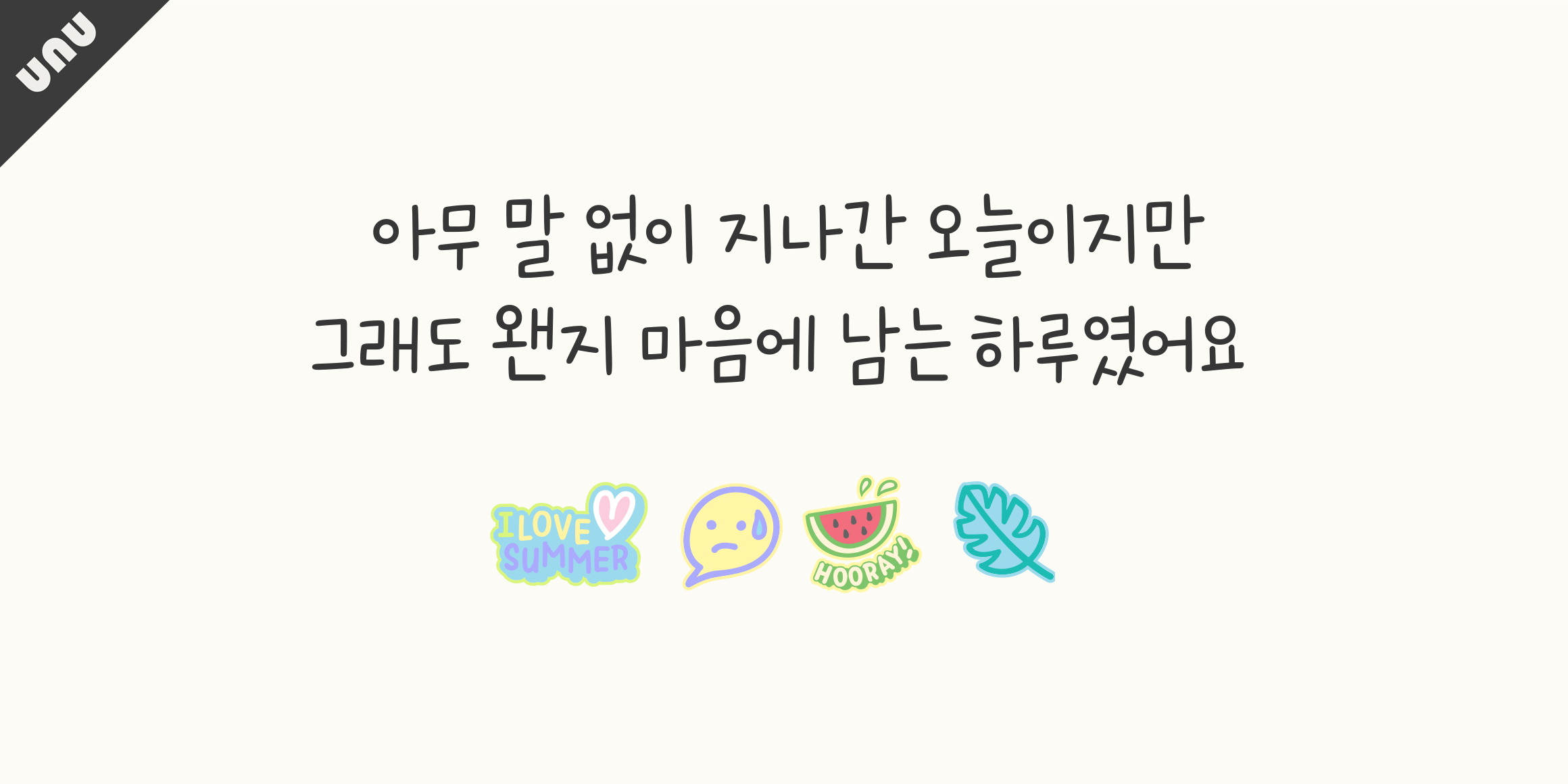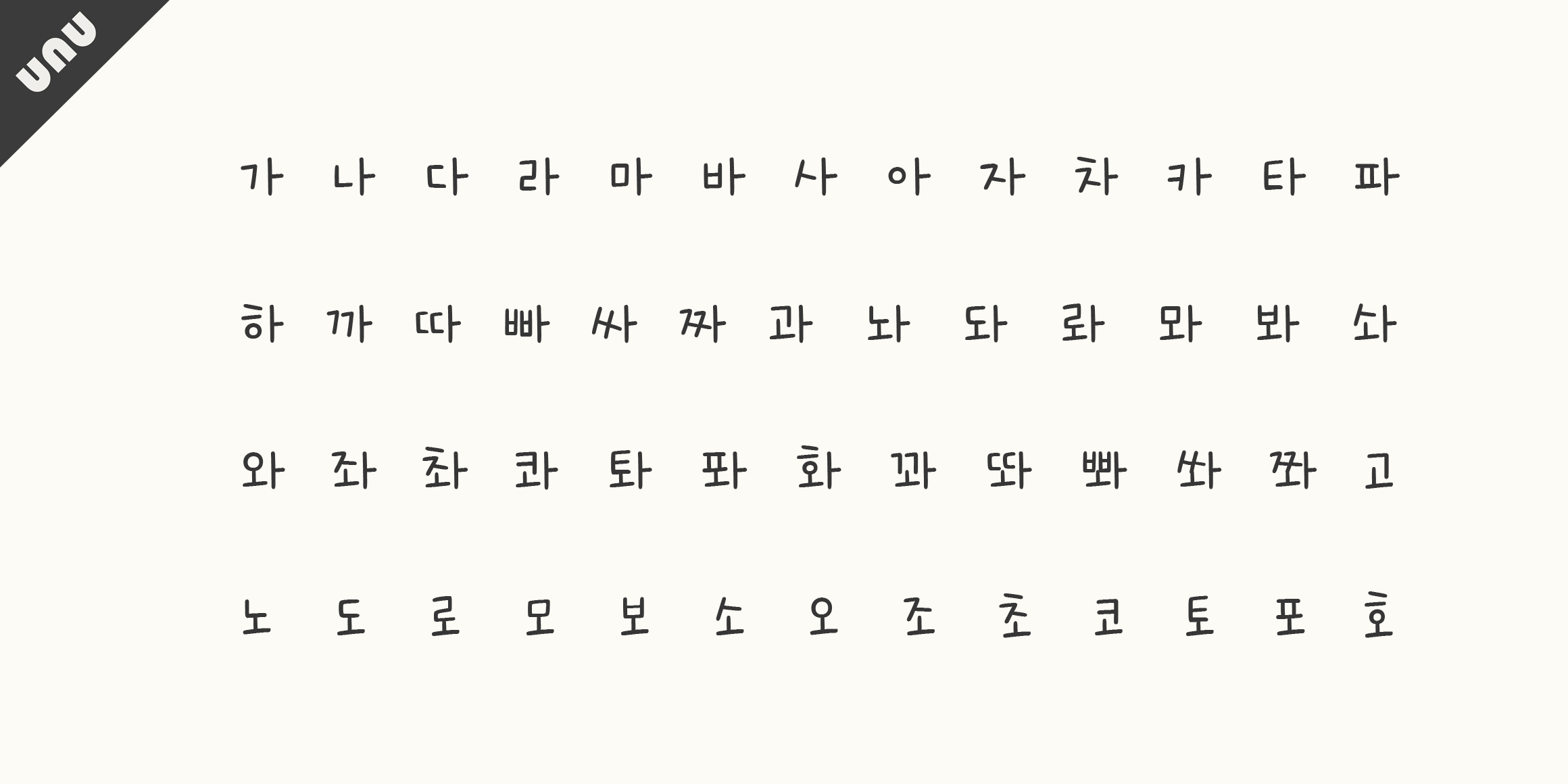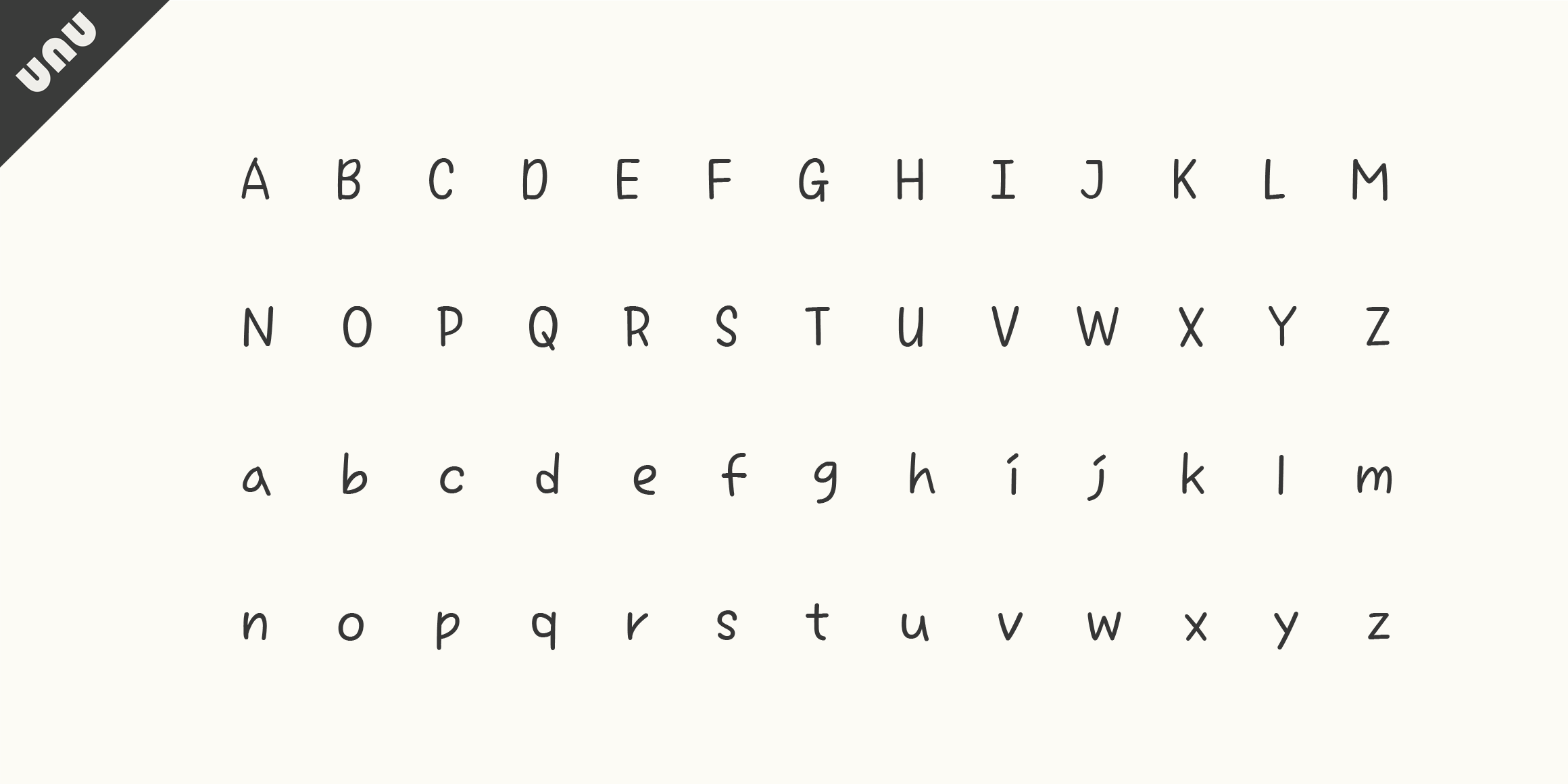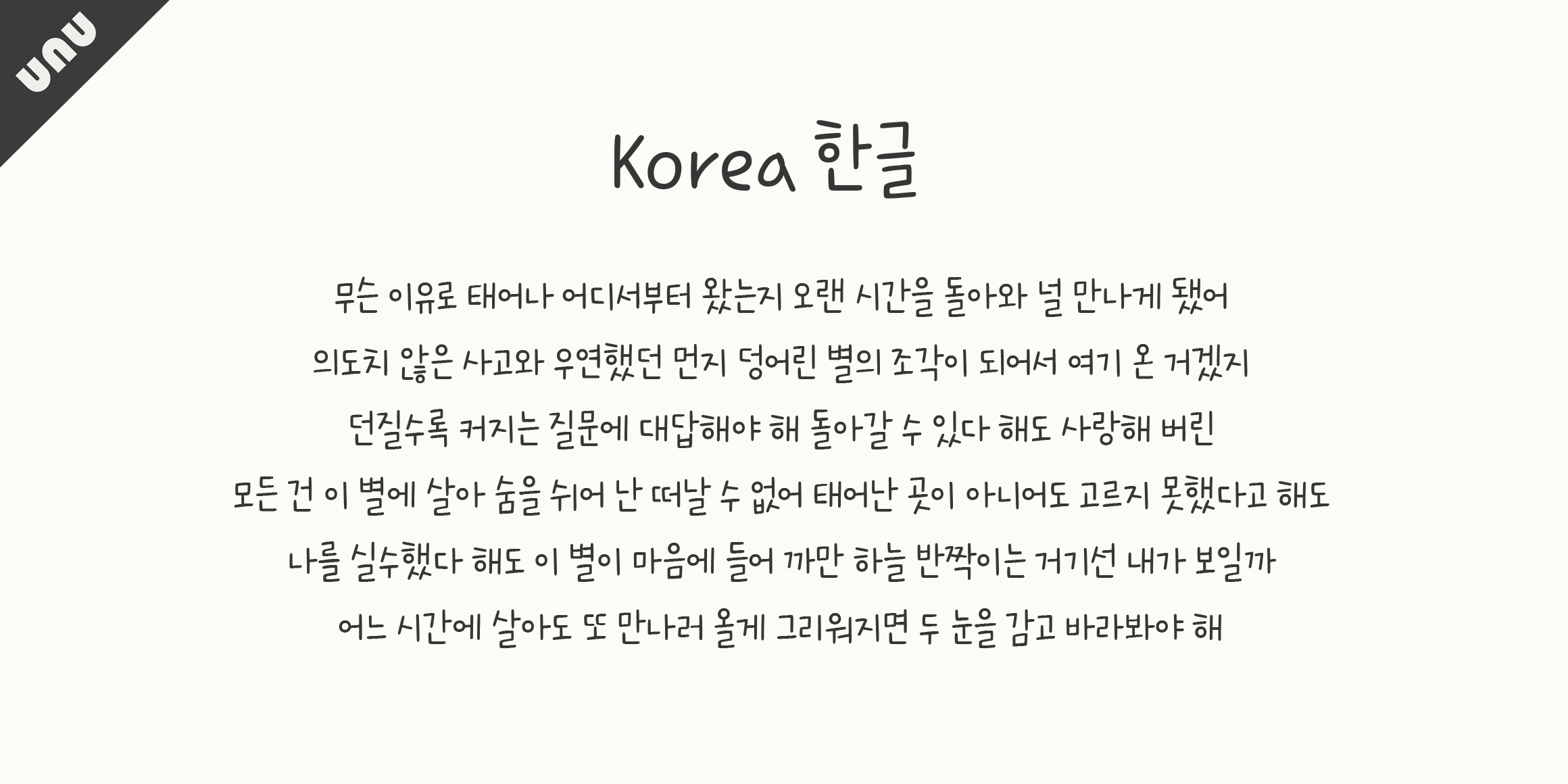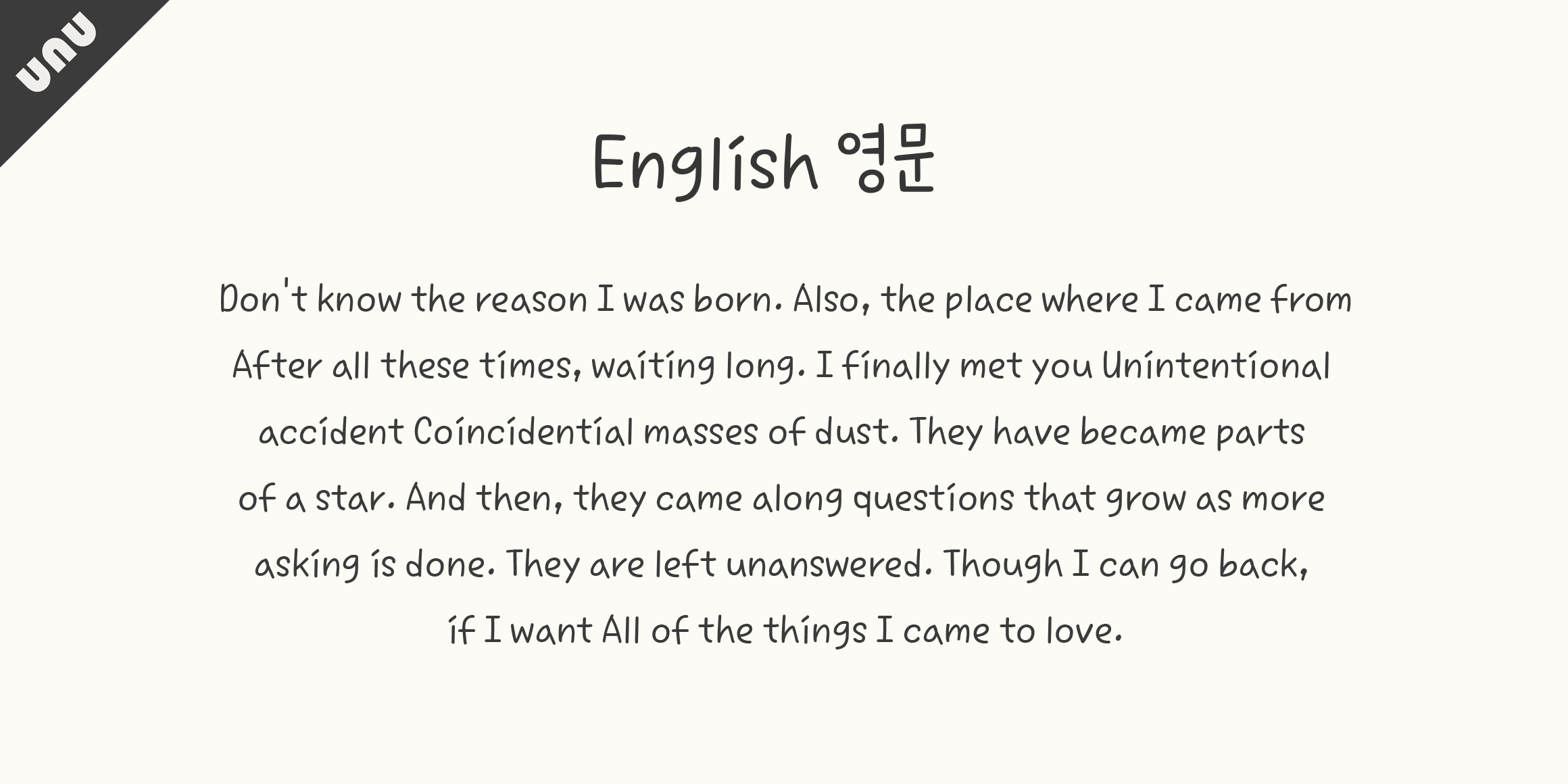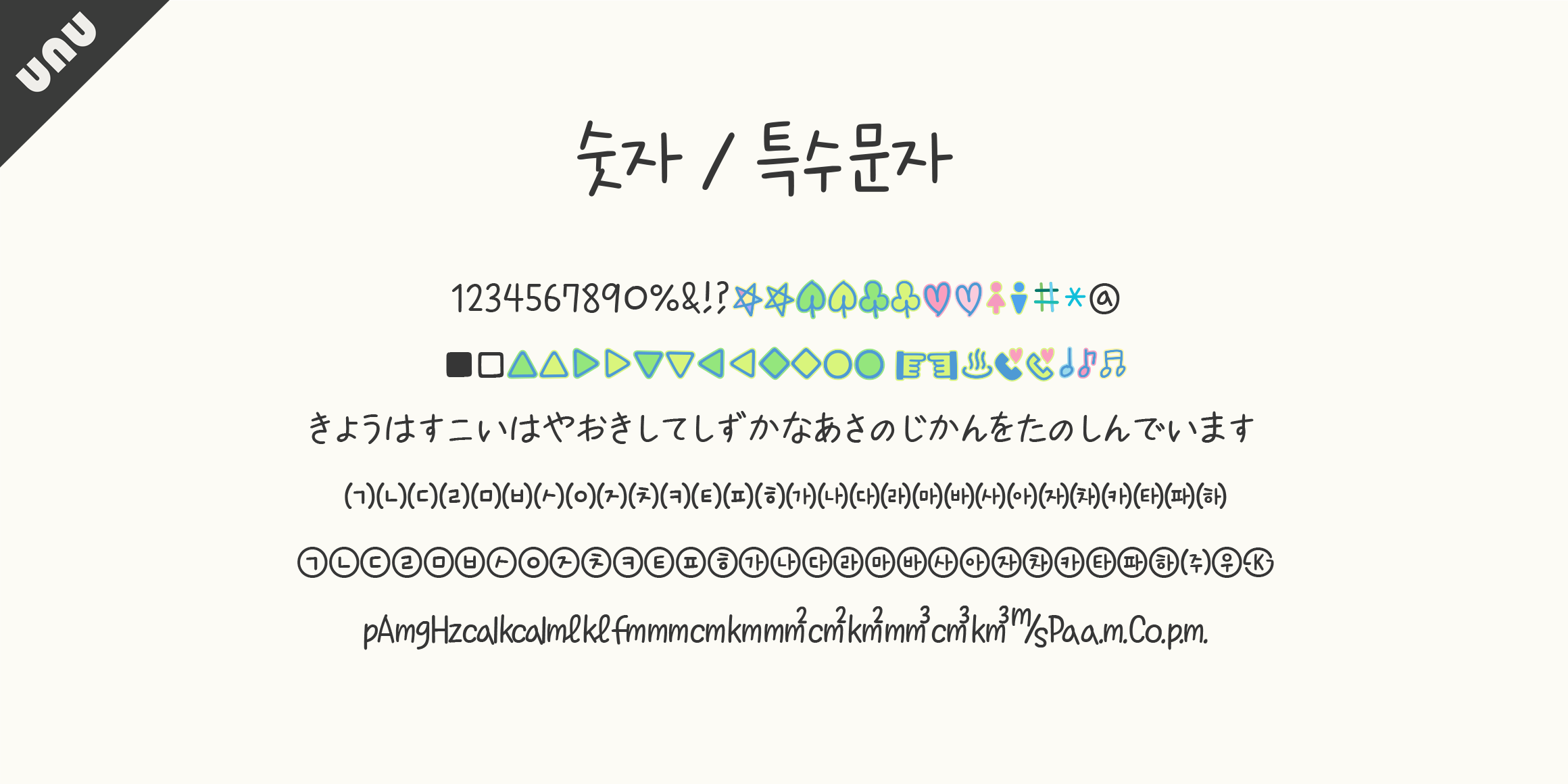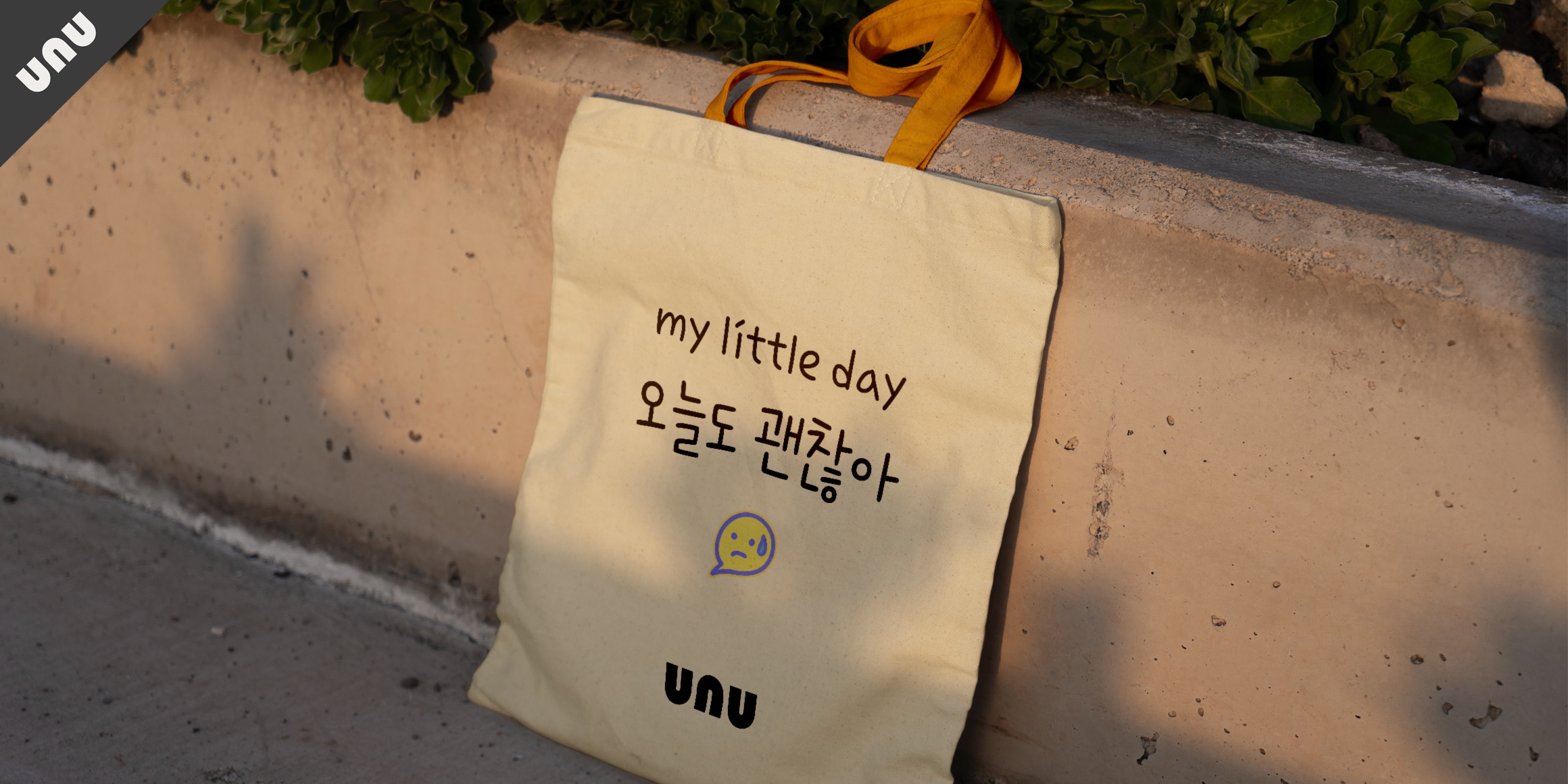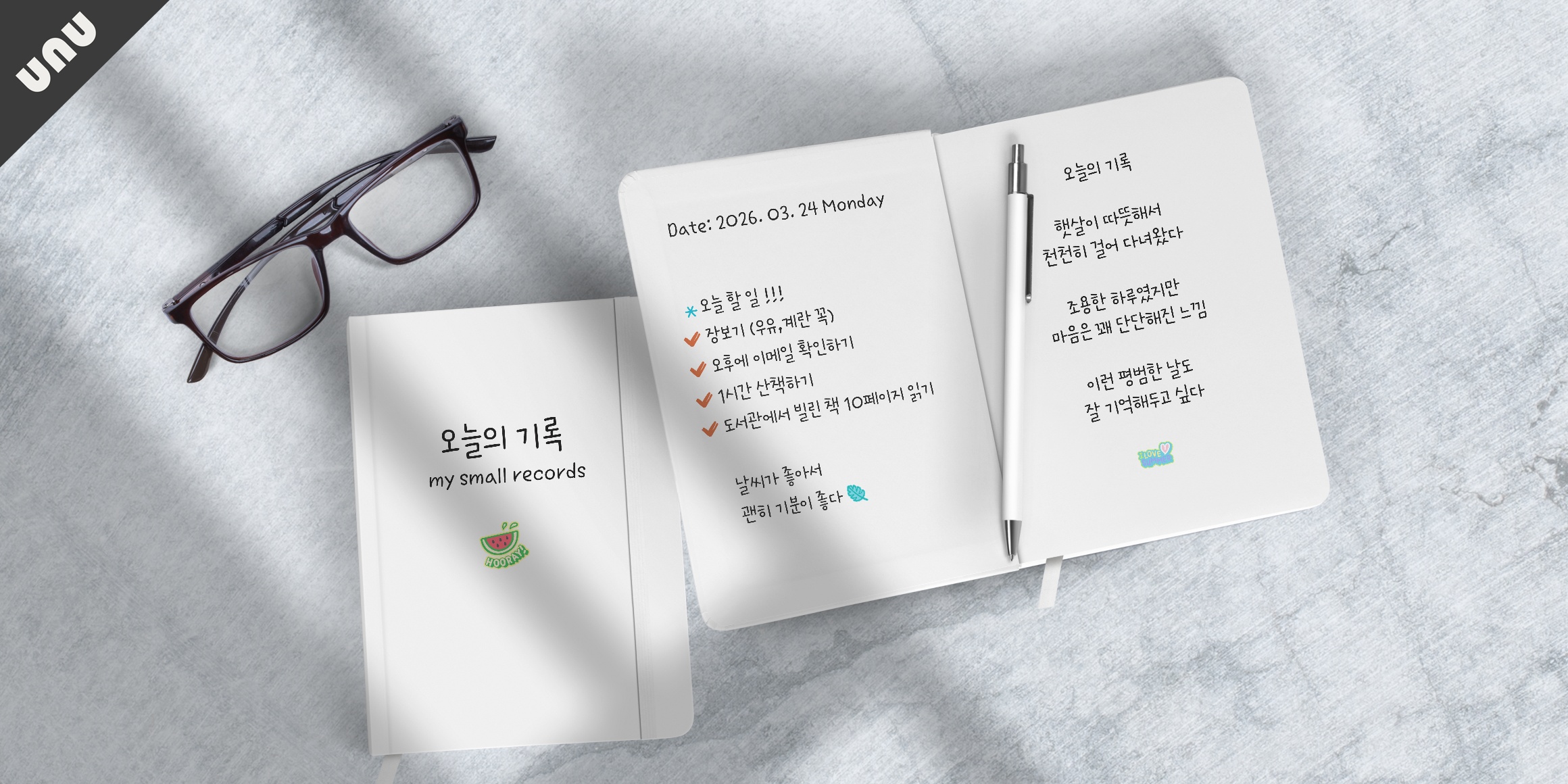
unuSummerisgreen
This font is a lovely handwriting with natural lines and grapheme shapes. I recommend it when you want to convey warm feelings to someone you love or when you want to record today in your precious diary. The unutype font conveys your warm heart. (There may be devices or apps that do not apply color, and there may be no change in thickness when made thick.)